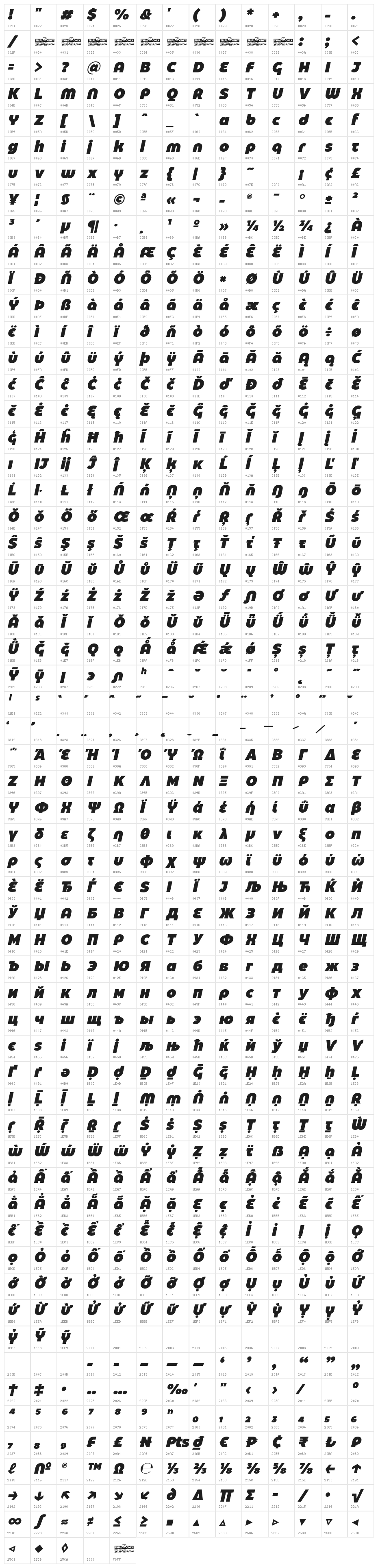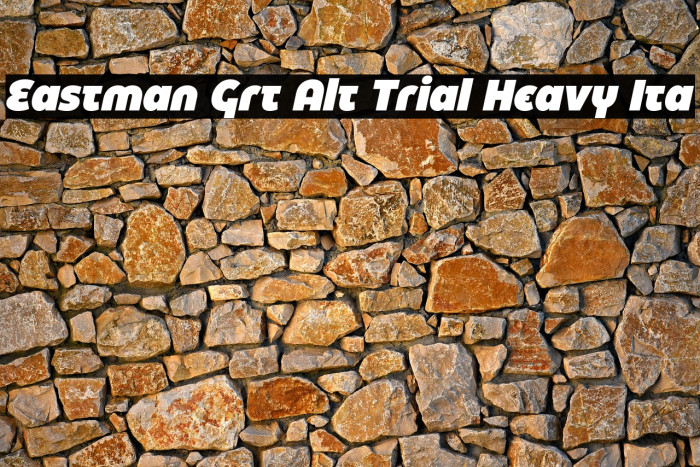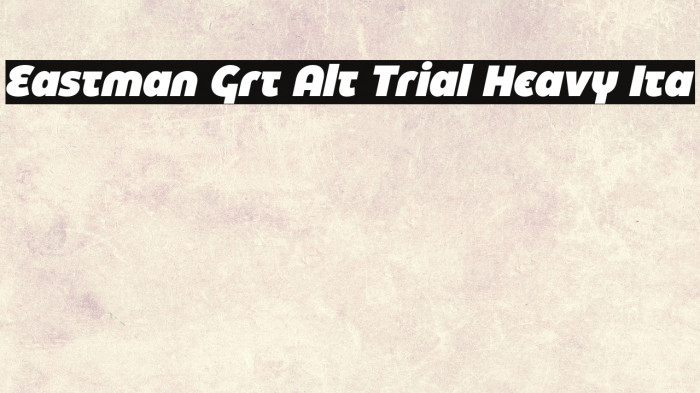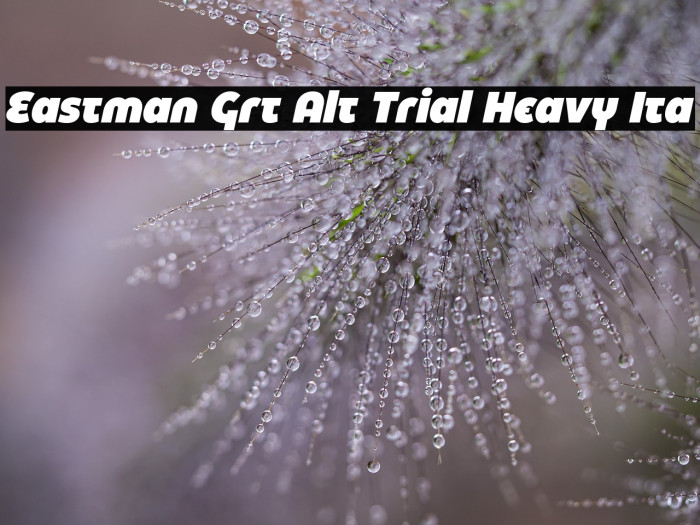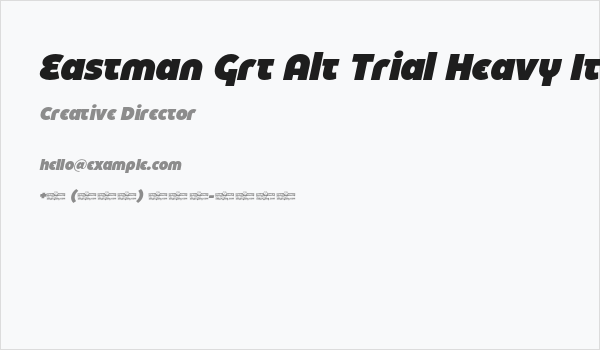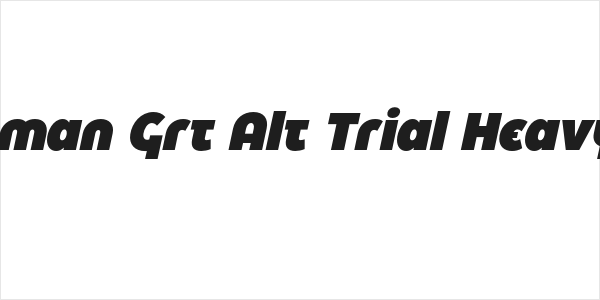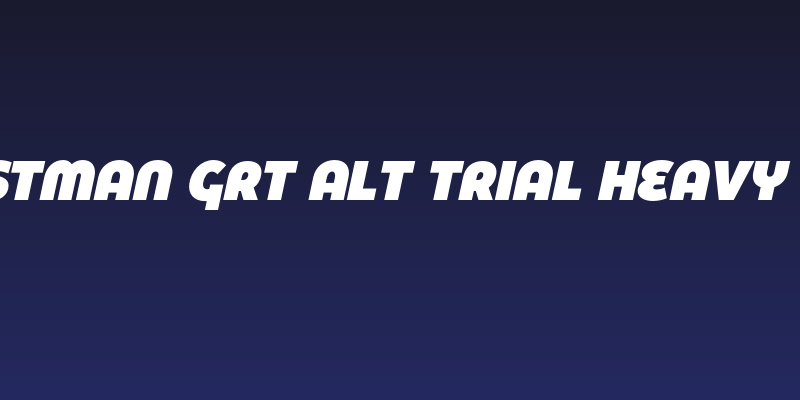
Eastman Grt Alt Trial Heavy Ita Font
Eastman Grt Alt Trial Heavy Ita Description
This font features a bold and dynamic style with a strong presence. The characters are thick and heavy, giving a sense of power and impact. The italic slant adds a sense of motion and energy, making it suitable for attention-grabbing designs. The uppercase and lowercase letters maintain a consistent weight, while the numbers and special characters are designed to complement the overall aesthetic. The font's boldness and slant make it ideal for projects that require a strong visual statement.
| Proposed Projects | Ideal for headlines, posters, branding, and advertising where a strong visual impact is needed. |